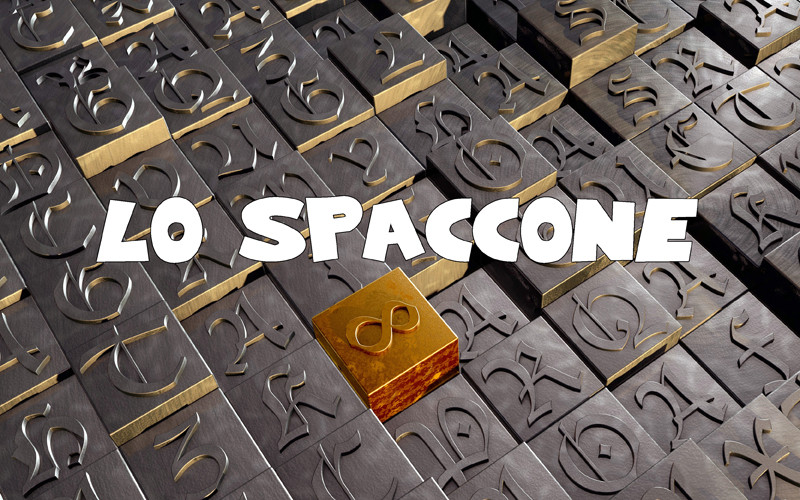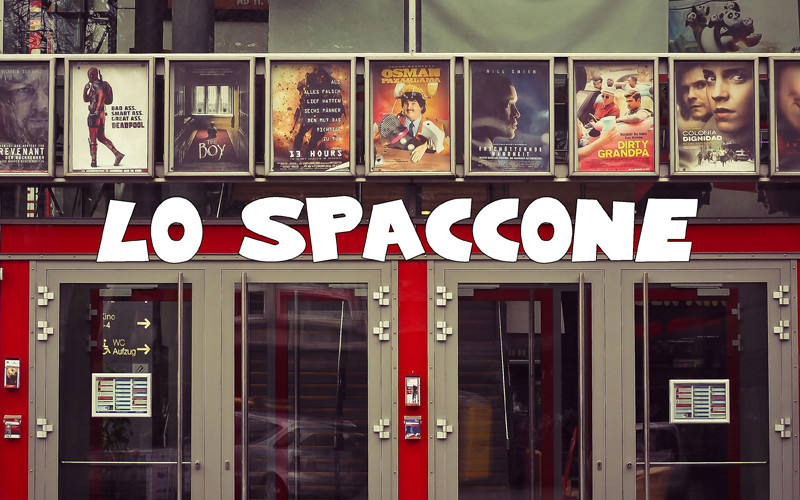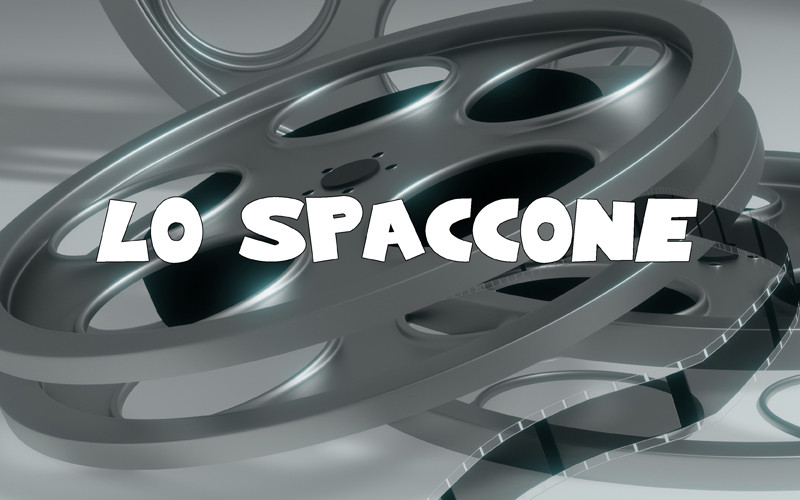
Directly from the film directed by Robert Rossen and starring Paul Newman, the new font for all fans of the film.
Direttamente dal film diretto da Robert Rossen e interpretato da Paul Newman, il font inedito per tutti gli estimatori del film.
Directly from the film directed by Robert Rossen and starring Paul Newman, the new font for all fans of the film.
Direttamente dal film diretto da Robert Rossen e interpretato da Paul Newman, il font inedito per tutti gli estimatori del film.